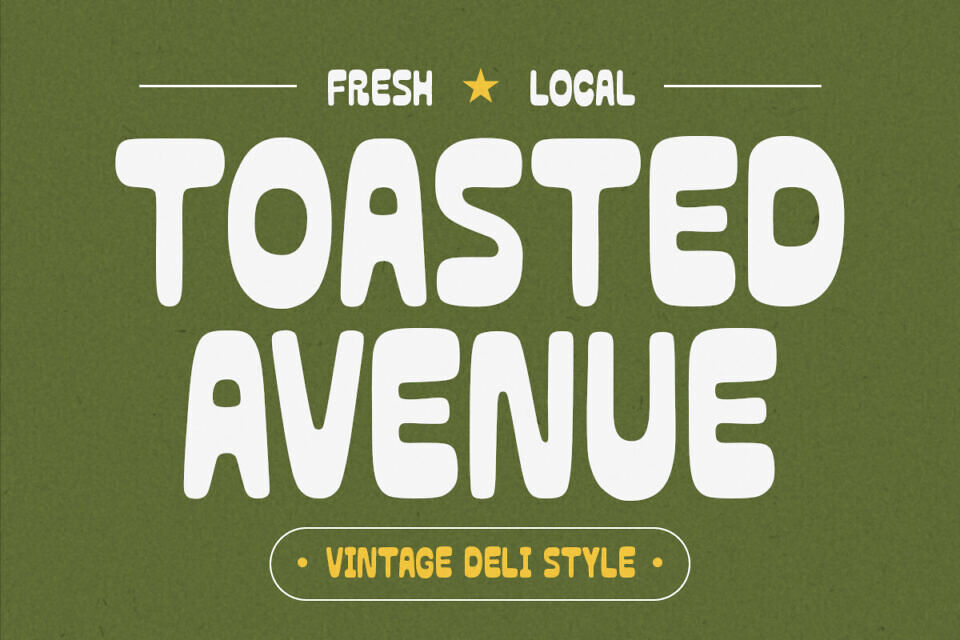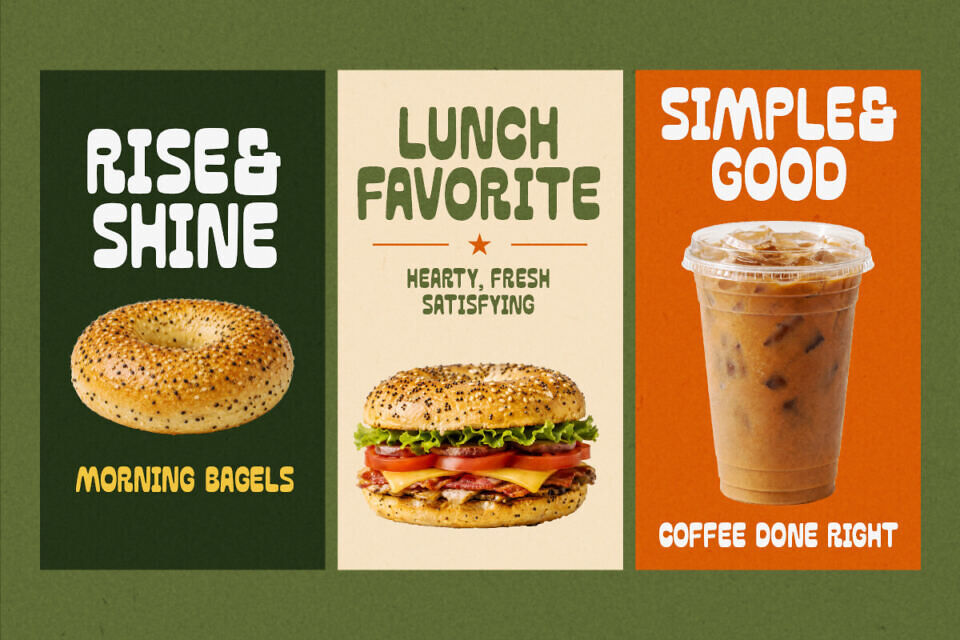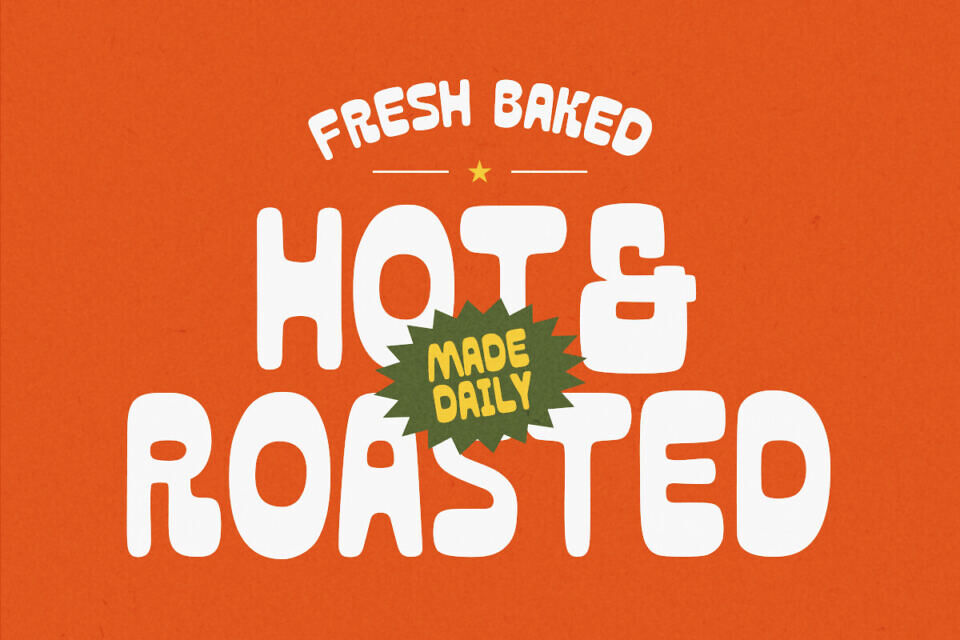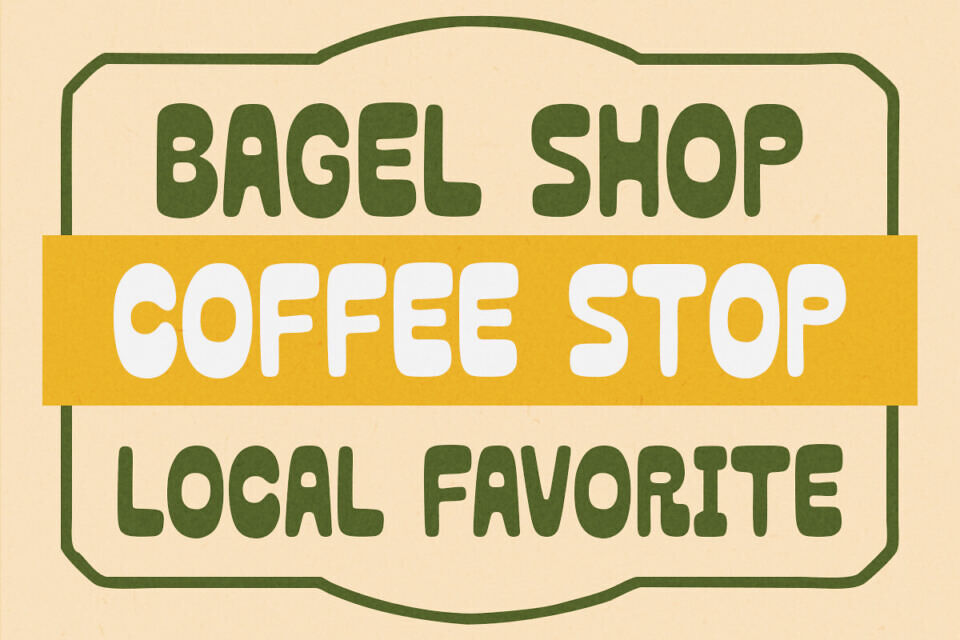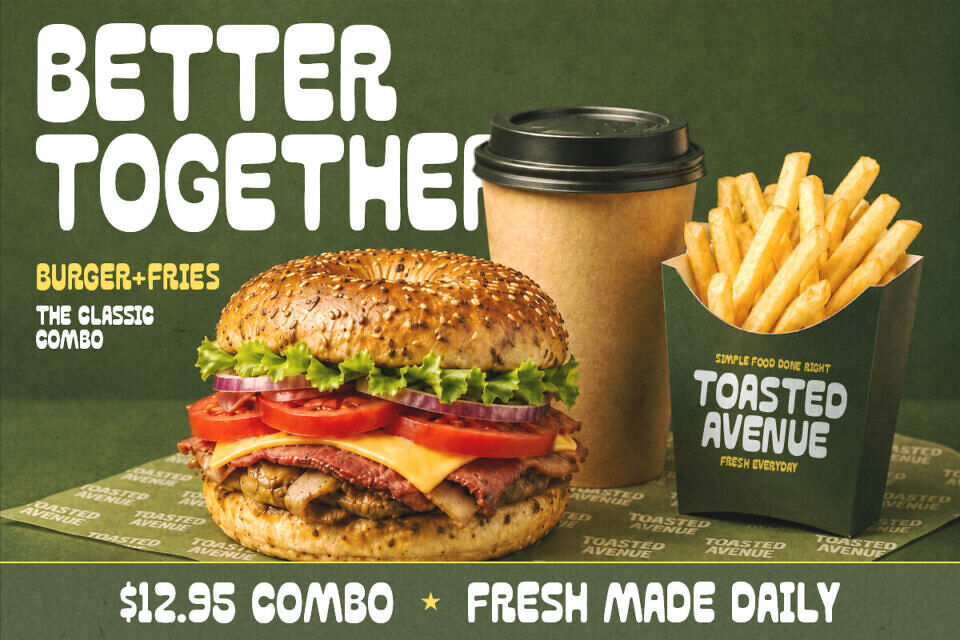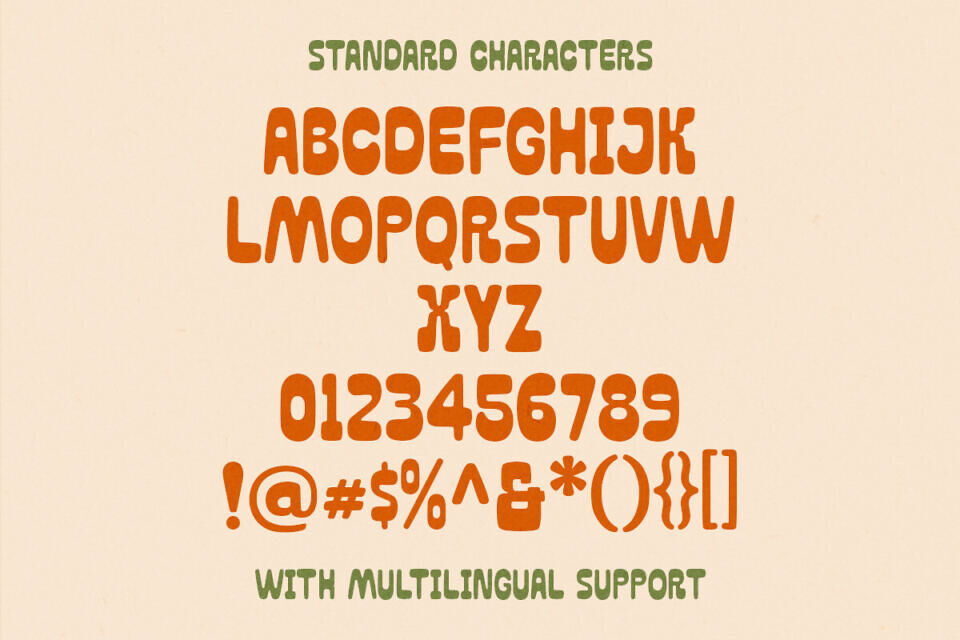
Toasted Avenue is a bold display font inspired by vintage deli signs, cozy cafés, and classic neighborhood food spots. Its chunky shapes, rounded corners, and handcrafted feel create a warm and welcoming look that stands out on menus, packaging, logos, posters, and restaurant branding. With a nostalgic charm and friendly personality, Toasted Avenue brings the flavor of old-school food culture into modern design.